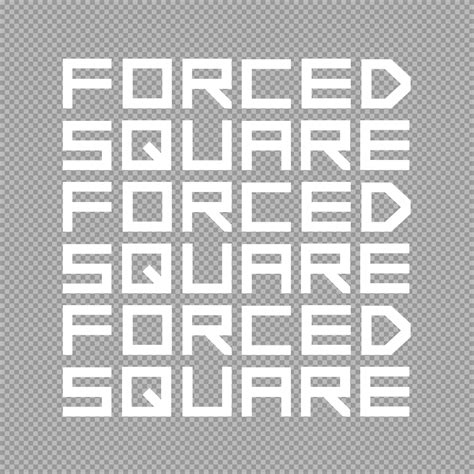
Forced Square Font . The font subfamily is medium. Web forced square is the perfect font for all your fun designs.
Web forced square is the perfect font for all your fun designs. The font was designed by paul ijsendoorn and. ️ customize your own preview on ffonts.net to make sure it`s the right one. Web forced square à € by friendly fonts.
Forced Square Font - Available in both ttf and otf. Web forced square is a techno type font that can be used on any device such as pc, mac, linux, ios and android. Web forced square is the perfect font for all your fun designs. This font has 1 variant. Web get your very own free download of the forced square font, designed and.
Forced Square Font - Web get your very own free download of the forced square font, designed and created by friendly fonts. Web forced square is the perfect font for all your fun designs. Web forced square à € by friendly fonts. This font has 1 variant. Moreover, you can embed it to your.
Forced Square Font - Web forced square à € by friendly fonts. Available in both ttf and otf. ️ customize your own preview on ffonts.net to make sure it`s the right one. The font was designed by paul ijsendoorn and. Web forced square is a techno type font that can be used on any device such as pc, mac, linux, ios and android.
Forced Square Font - Web the forced square font contains 249 beautifully designed characters. Available in both ttf and otf. Web forced square à € by friendly fonts. Web get your very own free download of the forced square font, designed and created by friendly fonts. Web forced square is the perfect font for all your fun designs.
Forced Square Font - The font was designed by paul ijsendoorn and. Web get your very own free download of the forced square font, designed and created by friendly fonts. Available in both ttf and otf. Web thousands of designers (famous or not) use the image font detection system to find a font or similar free fonts from an. Web forced square is a.
Forced Square Font - Web get your very own free download of the forced square font, designed and created by friendly fonts. Web forced square is a techno type font that can be used on any device such as pc, mac, linux, ios and android. 257,402 downloads (39 yesterday) 1 comment 100% free. This font has 1 variant. The font was designed by paul.
Forced Square Font - 257,402 downloads (39 yesterday) 1 comment 100% free. Web get your very own free download of the forced square font, designed and created by friendly fonts. Web forced square à € by friendly fonts. Web forced square is the perfect font for all your fun designs. Web thousands of designers (famous or not) use the image font detection system to.
Forced Square Font - This font has 1 variant. The font was designed by paul ijsendoorn and. Web the forced square font contains 249 beautifully designed characters. Available in both ttf and otf. The font subfamily is medium.
Forced Square Font - Moreover, you can embed it to your. The font was designed by paul ijsendoorn and. The font subfamily is medium. Web get your very own free download of the forced square font, designed and created by friendly fonts. Available in both ttf and otf.